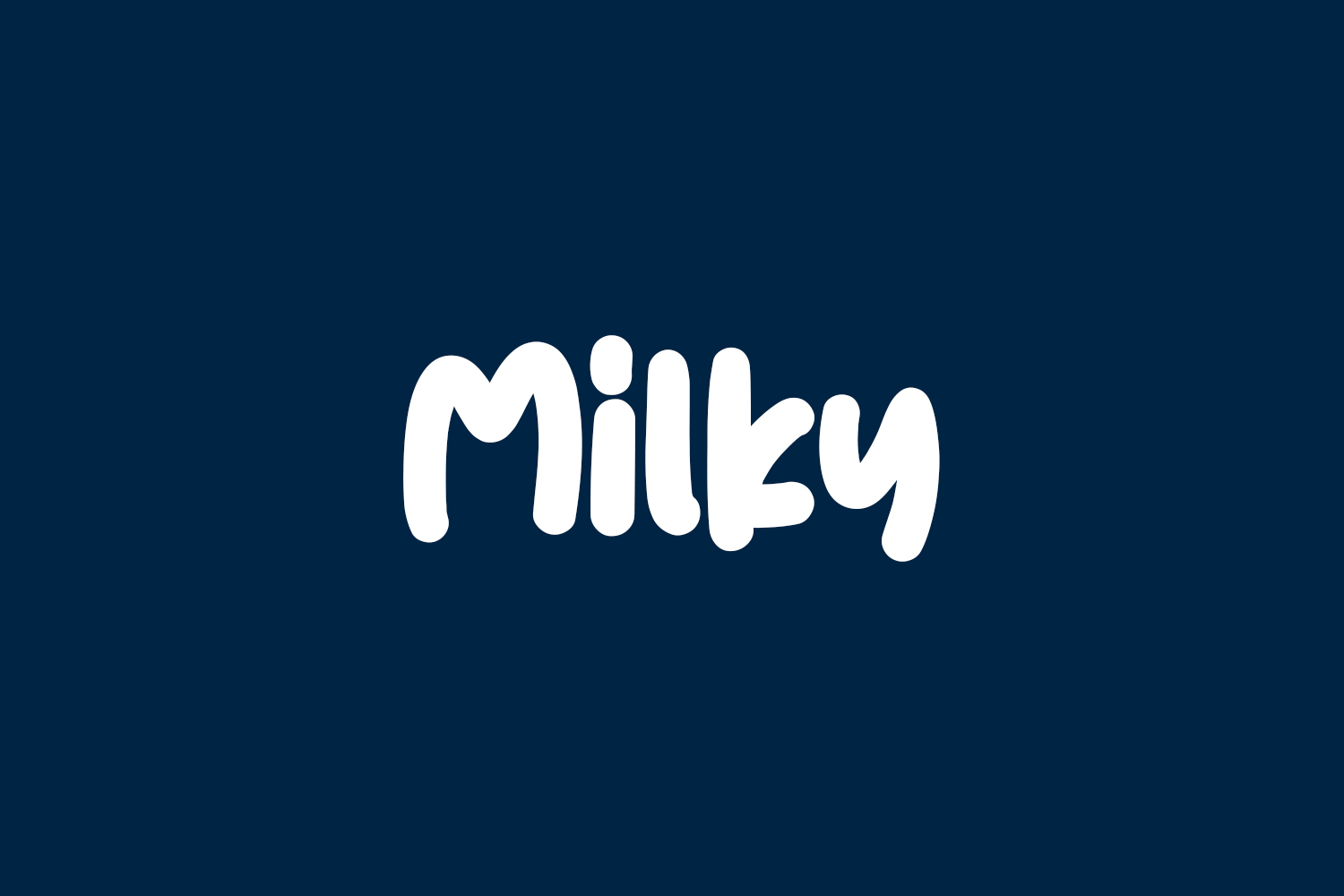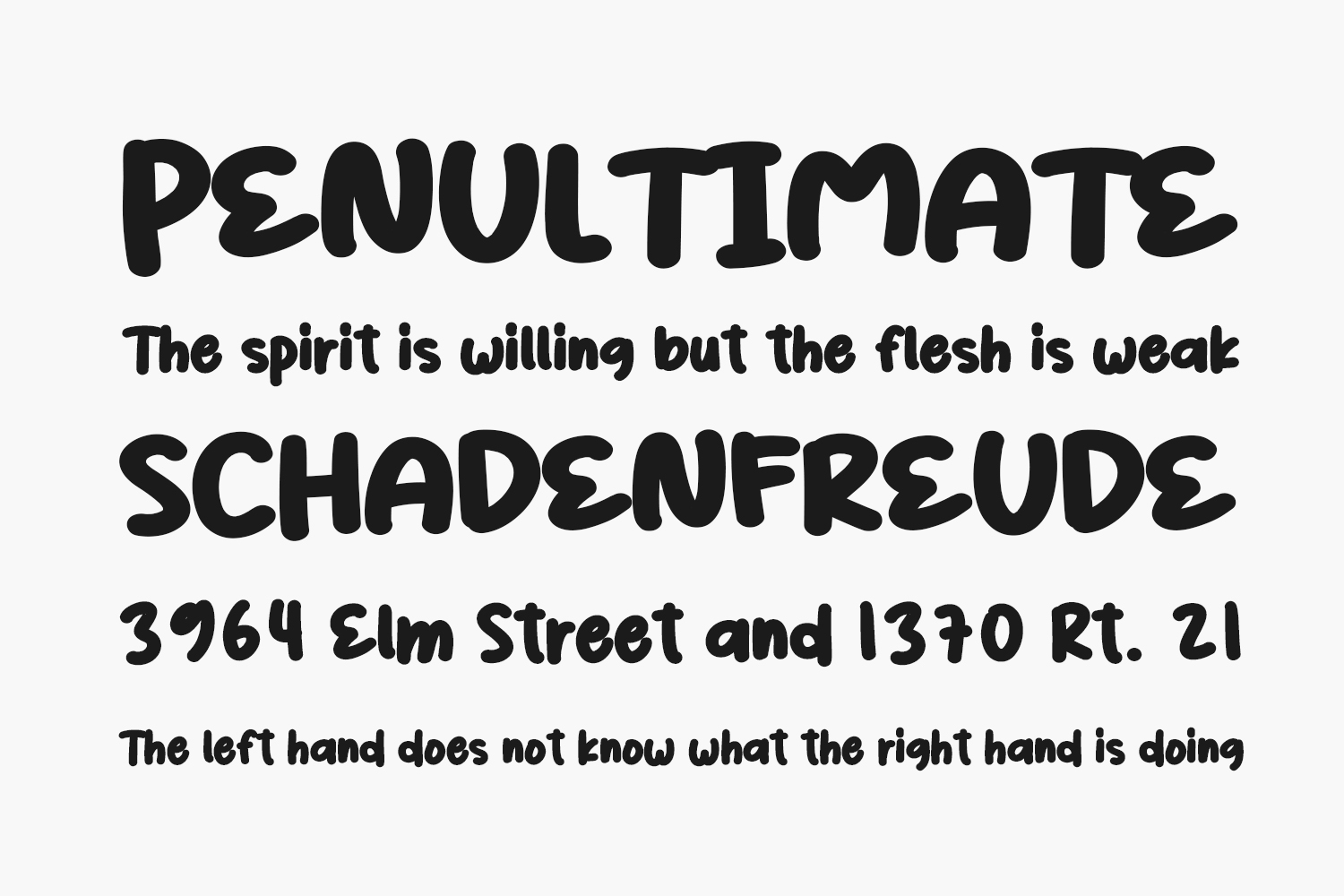
Milky Free Font is a simple, thick lettered, and casual display font. This adaptable font will look great on a variety of design ideas. It will add a fun and friendly touch to each of your projects. Milky Free Font was designed by Lontong Lodeh and is free for personal use only. Please purchase the full version for commercial use.